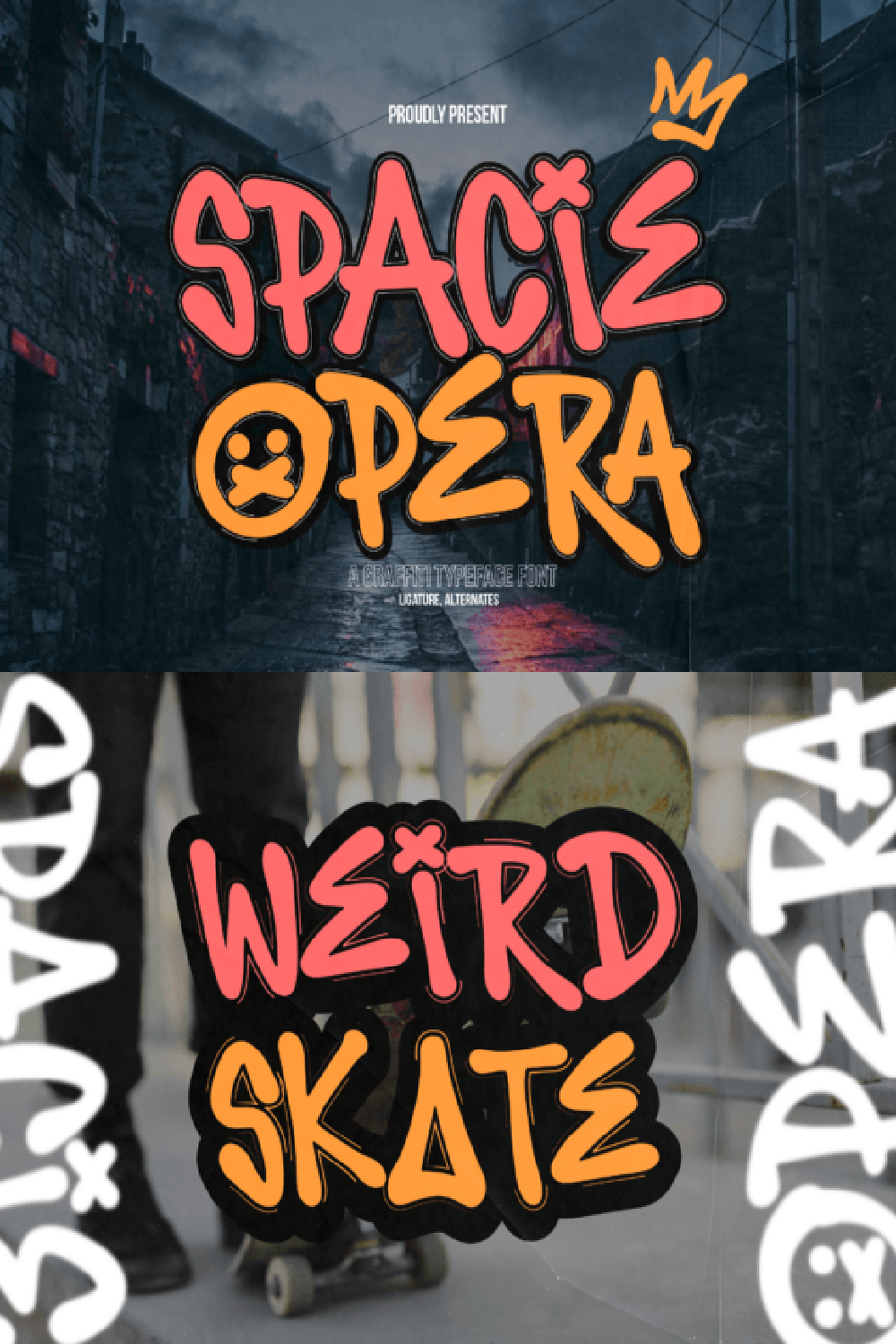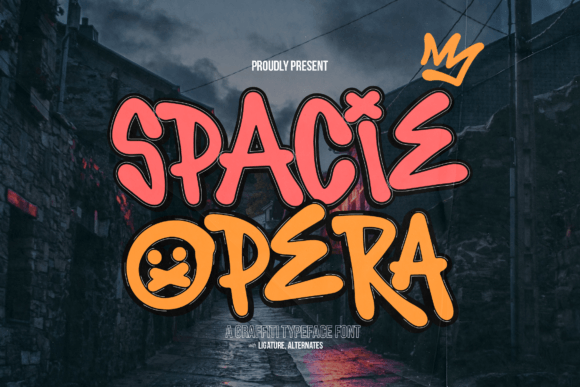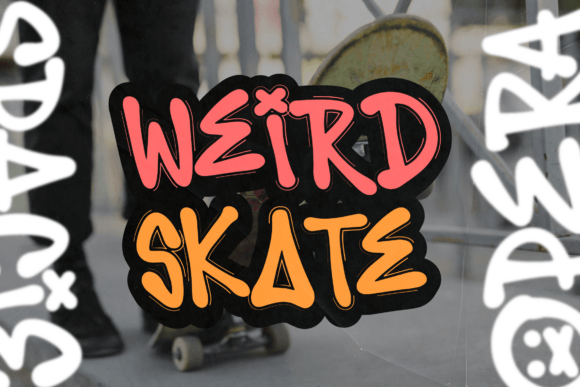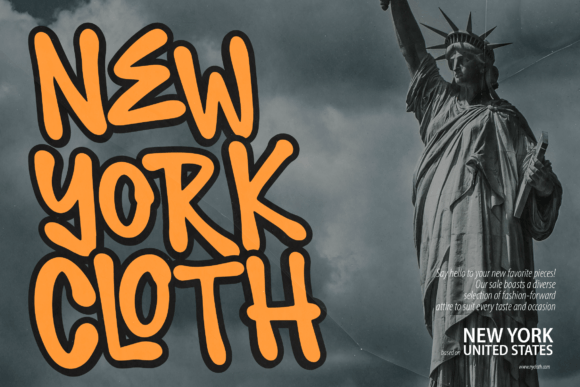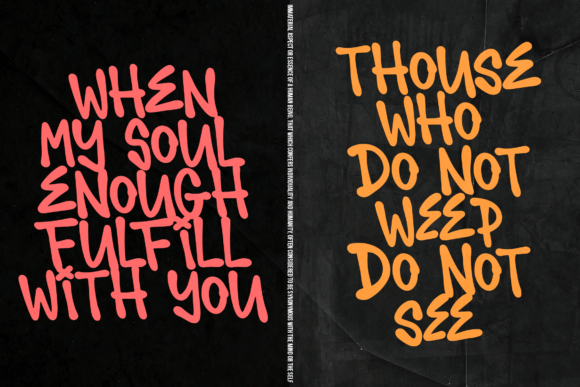
Spacie Opera Font: A Bold Graffiti Font for Playful Poster Designs
About the Spacie Opera Font
Unleash your creativity with Spacie Opera Font, a versatile font perfect for a wide range of applications. Spacie Opera is a lively graffiti font that has a playful and urban feel. Its bold letters are filled with fun shapes and designs, making it great for posters, street art, or anything that needs a cool, modern touch!
Spacie Opera Font Usage Examples